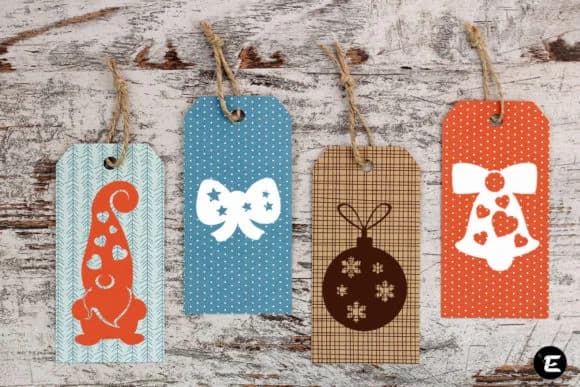
Picture yourself designing a suite of holiday greeting cards with festive ornamental symbols and hand-drawn charms scattered throughout the layout. Christmas by grafikestelle is exactly what you reach for. This dingbats font delivers a collection of Christmas icon imagery that feels playful and intentional, rather than defaulting to the flat clip-art aesthetic many seasonal fonts lean on.
The symbol-based character set excels for holiday greeting card suites, seasonal gift tag designs, festive packaging labels, and DIY ornament projects. Each keystroke places a new Christmas element (snowflakes, ornaments, holly sprigs, stockings, pine branches, candy canes, bells, and wreaths) rather than a traditional letter. That means you can layer symbols freely, build repeating patterns, or arrange decorative elements across your canvas without hunting through generic clip art libraries. The mix of imagery gives you options to compose custom scenes or use individual icons as accent marks throughout a larger composition.
The icons maintain their charm and clarity at any size, whether you're using them for small card details or scaling up for bold poster backgrounds. This scalability makes Christmas particularly useful for designers juggling holiday merchandise projects, craft production work, and seasonal promotional designs. The variety within the character set means fewer imported assets and less dependency on outside resources. Grab Christmas from Creative Fabrica and begin building your festive layouts.
Christmas Font